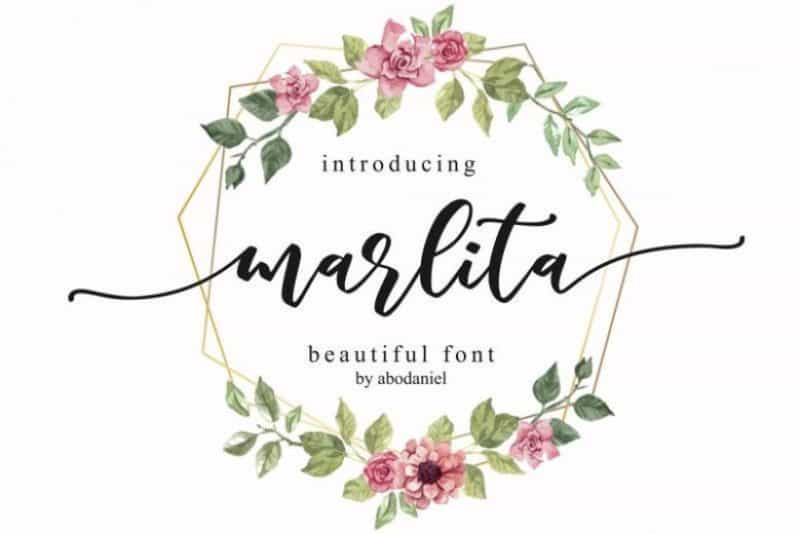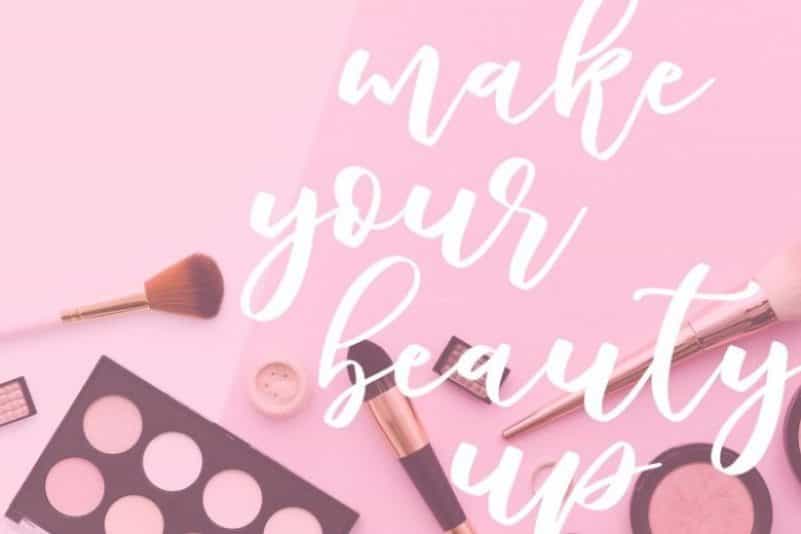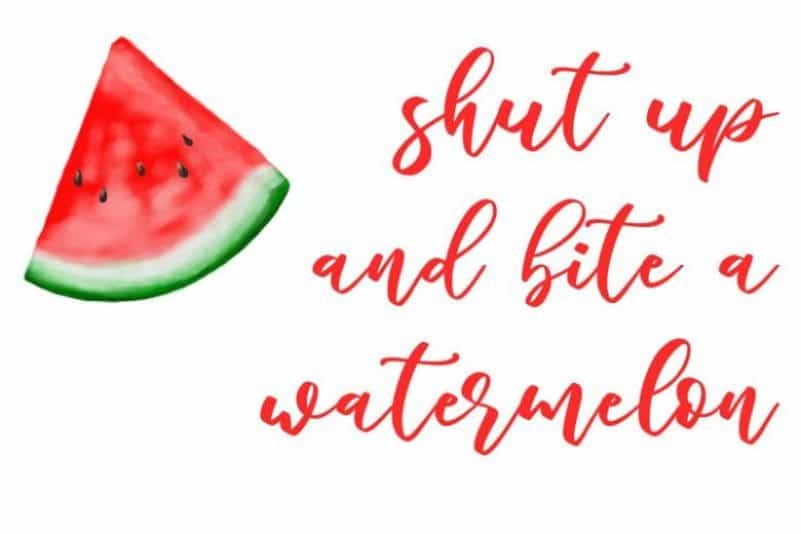
Discover Marlita Script Font, part of the Brush Handwritten collection—a versatile and unique font perfect for adding a personal touch to your projects. Download it for free and enjoy crafting designs with style, from invitations to social media posts. This font is available exclusively for personal use, giving you the freedom to create without limits. Unlock your creativity with Marlita Script Font today!
Introducing Marlita Font. It is a creation of Abo Daniel Studio and has been uploaded in the website. It provides services in logo & amp designs, branding, wedding designs, social media posts & adverts, product designs, magazine designs and many others.